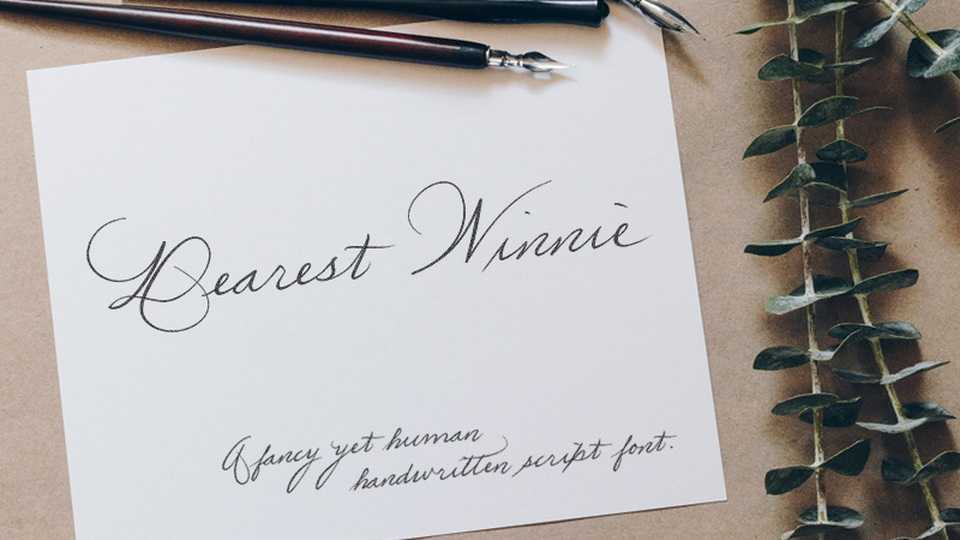
Dearest Winnie Font › Fontesk
Download Dearest Winnie font, a fancy yet human handwritten script typeface inspired by a series of love letters. Dearest Winnie contains contextual alternates for the initial and terminal forms of all lowercase letters, along with twelve ligatures and six swashes.